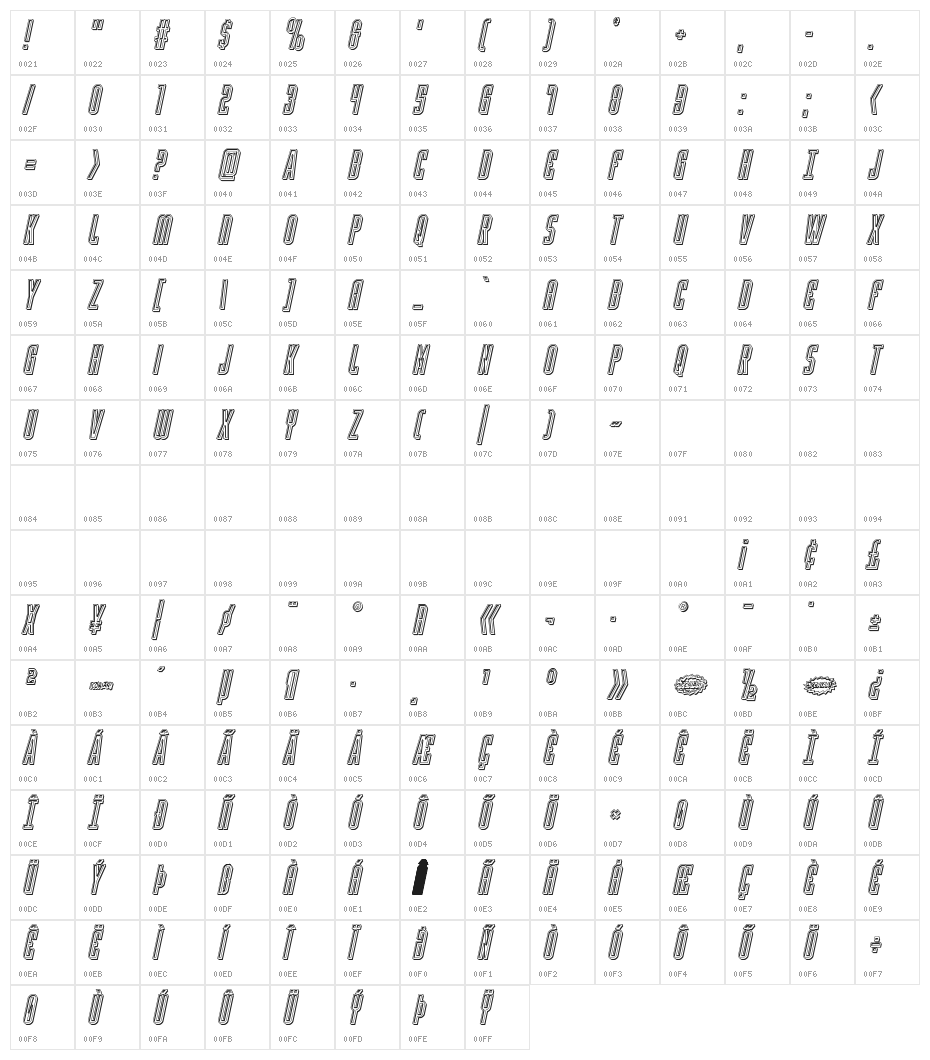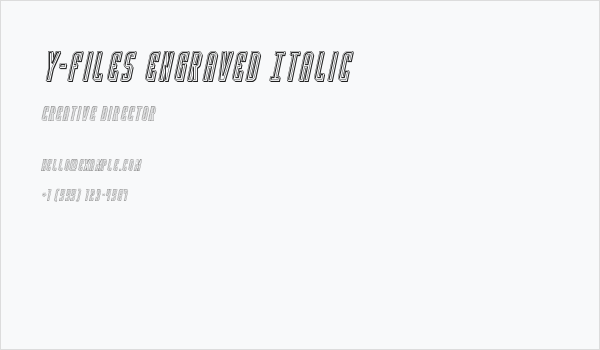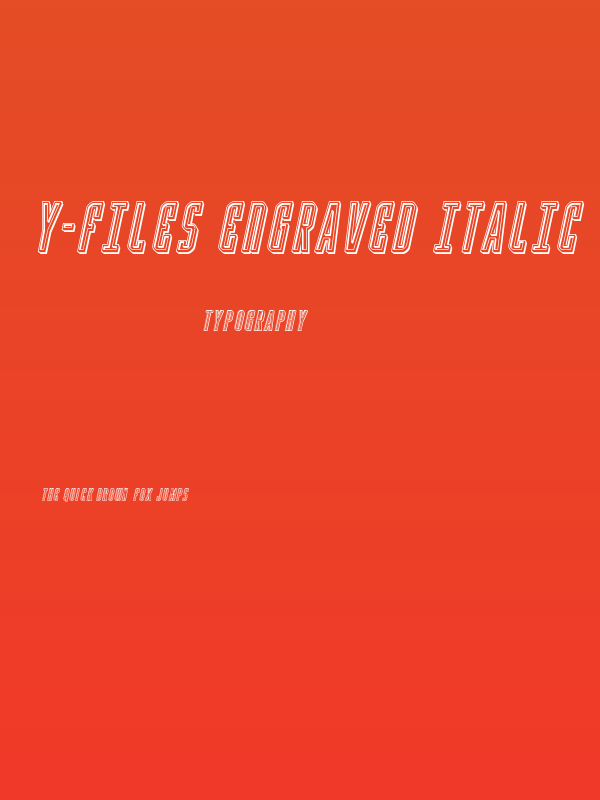
Y-Files Engraved Italic Font
Y-Files Engraved Italic Description
This font features a distinctive engraved style with a three-dimensional effect, achieved through bold outlines and inner lines that create a sense of depth. The italicized slant adds a dynamic and forward-moving appearance, making it stand out in any design. The uppercase and lowercase letters maintain a consistent style, with sharp angles and clean lines that contribute to its modern aesthetic. The numerals and special characters are equally well-crafted, ensuring uniformity across all elements. This font is ideal for projects that require a bold statement, combining both elegance and modernity.
| Proposed Projects | Ideal for branding, posters, headlines, and any design requiring a strong visual impact. |